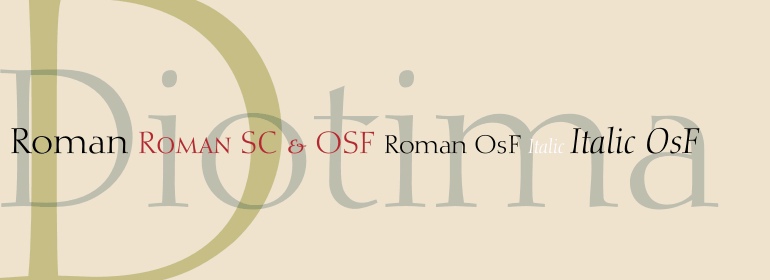
Diotima Font
Diotima Font is perfect for philosophical publication layouts, classical studies materials, academic wisdom literature, scholarly journal designs, intellectual conference branding, university philosophy departments, thoughtful editorial applications, and contemplative cultural institutions. This profound typeface excels in applications where philosophical depth and intellectual elegance are essential for creating meaningful and contemplative brand experiences that honor the tradition of philosophical inquiry.
What makes Diotima Font truly exciting is its sublime embodiment of philosophical wisdom and intellectual beauty that captures the profound teachings of ancient Greek philosophy and the timeless quest for truth and understanding. The font features graceful letterforms with classical proportions and wisdom-inspired character details that mirror the elegant discourse of Platonic dialogues and the sophisticated reasoning of philosophical inquiry. Its contemplative personality and intellectual character create an immediate sense of philosophical depth and scholarly reverence that resonates with audiences seeking profound understanding and meaningful intellectual engagement. The typeface's philosophical heritage and wisdom appeal make it perfect for brands wanting to convey depth, intelligence, and connection to the eternal pursuit of truth and philosophical understanding.
The Diotima Font family includes regular and italic versions with classical styling, complemented by philosophical alternates and wisdom-inspired decorative elements. The font offers comprehensive character sets with classical symbols, scholarly ligatures, and philosophical styling details that enhance its contemplative aesthetic. Additional graphic elements including classical patterns, wisdom motifs, philosophical ornaments, and intellectual flourishes provide designers with complete branding tools rooted in philosophical tradition and classical learning culture.